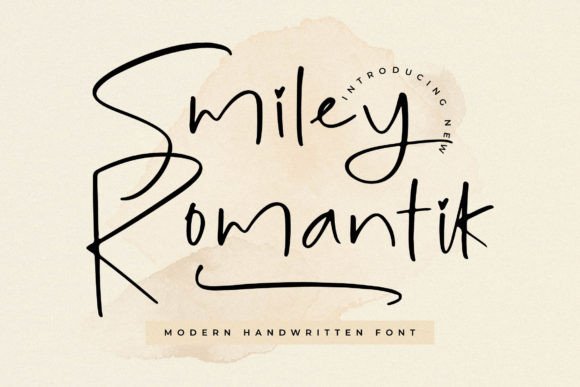
In the realm of typography, there lies a font that embodies the essence of love and romance – Smiley Romantik Script. This modern handwritten font, conceived by the creative minds at Glorytype Studio, is a testament to the power of words and their ability to ignite the heart.
Smiley Romantik is like a dance on paper, its strokes flowing with grace and fluidity. Each letter seems to be imbued with a tender touch, a whispered secret between lovers. Its curves are like soft embraces, inviting you to immerse yourself in a world where love reigns supreme.
With Smiley Romantik, your words will transcend the mundane and transform into heartfelt expressions of affection. Imagine your romantic poems adorned with this elegant font, their words dancing across the page like butterflies in a summer breeze. Each letter will carry the weight of your emotions, conveying the depths of your love and desire.
Whether you're pouring your heart out in a love letter, designing a heartfelt wedding invitation, or creating a personalized gift for your beloved, Smiley Romantik will elevate your words, imbuing them with a touch of magic. Its versatile nature makes it suitable for a wide range of projects, allowing your creativity to flourish.
Embrace the allure of Smiley Romantik and witness the transformation of your words into captivating works of art. Let this font be your muse, guiding you towards expressing your love in ways that will forever be cherished.